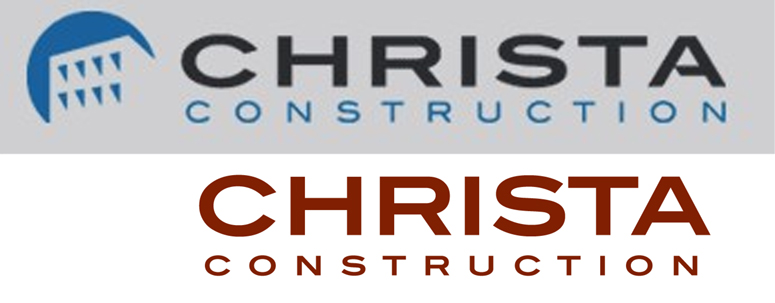
ITC Blair Bold and ITC Blair Medium was the starting point. CHRISTA is stretched about 110% with the "A" modified and CONSTRUCTION is condensed to about 90%.